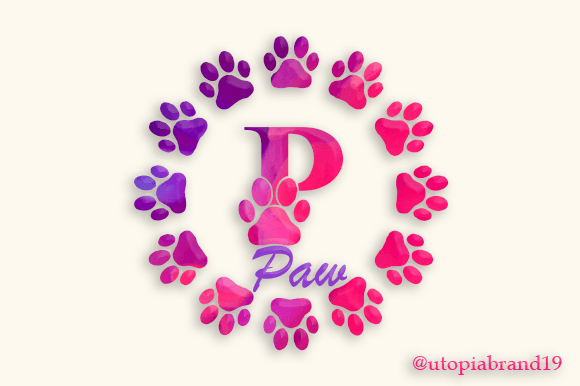
Are you in search of a font that's perfect for creating beautiful, aesthetic quotes? Look no further than Paw Monogram Font, a decorative font that's sure to delight! Created by the talented utopiabrand19, this adorable font features lovely ornaments that are sure to capture your heart.
One of the best things about Paw Monogram is its authentic feel. This font truly captures the essence of handmade artwork, making it the perfect choice for creating stunning wedding invitations, beautiful stationary art, eye-catching social media posts, and cute greeting cards. With Paw Monogram, you'll be able to elevate your designs to a whole new level.
But that's not all! This font is also incredibly versatile, making it perfect for a wide range of design projects. Whether you're working on a whimsical, fairy tale-inspired design or a sleek and modern project, Paw Monogram has you covered.